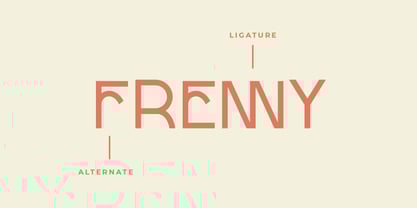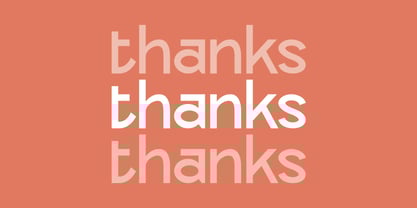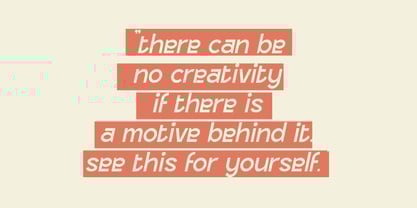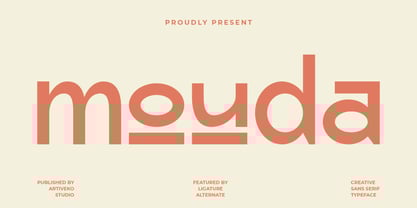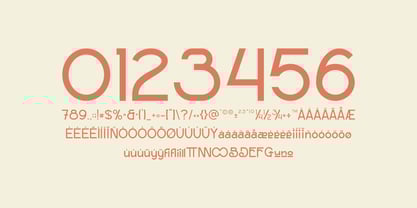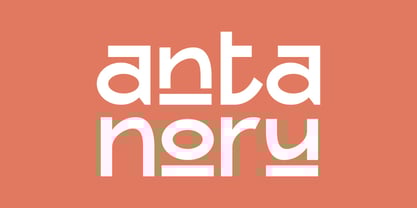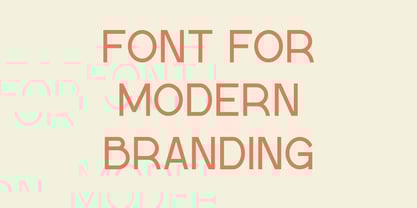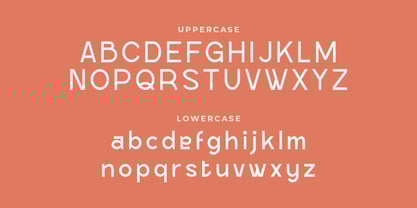
Mouda
by Artiveko
The Mouda Font Family was designed by Iwan Alwan and published by Artiveko. Mouda contains 2 styles and family package options. More about this family
Mouda is a fresh and expressive sans serif font that blends clean structure with creative spirit. Designed with subtle quirks and smooth curves, Mouda offers a contemporary look that’s perfect for branding, editorial layouts, logos, packaging, and digital design that needs personality without losing professionalism.
Its geometric base is softened by artistic touches, making each letter feel modern yet approachable. Mouda comes with uppercase and lowercase characters, multilingual support, and a playful set of ligatures and alternates to add character and flexibility to your typography.
Whether you're building a lifestyle brand, designing bold visual content, or creating standout titles, Mouda adds a stylish twist to your message. Let your words stand out with clarity and creativity — with Mouda, the sans serif that redefines modern originality.